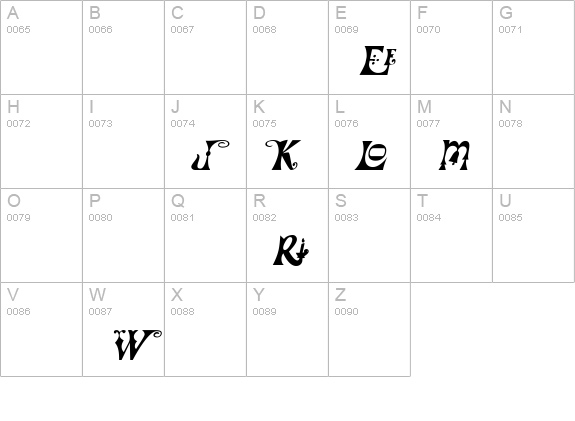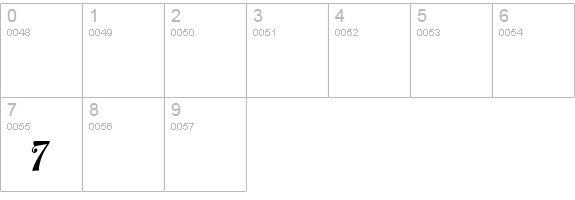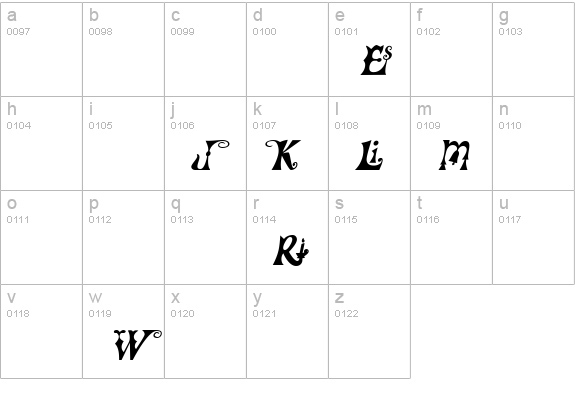
FrillyExtras Italic Font Details
FrillyExtras Italic is a distinctive, italic variant in the FrillyExtras typeface family \xE2\x80\x94 well suited to design and typography projects.
FrillyExtras Italic is a charming and elegant font that exudes a sense of sophistication and style. With its delicate and ornate details, this font adds a touch of whimsy to any design project. Perfect for invitations, greeting cards, and other creative endeavors, FrillyExtras Italic is sure to make a lasting impression. The best part? FrillyExtras Italic is freely available to download at FontsMarket.com. So go ahead and add this beautiful font to your collection today and let your creativity shine!